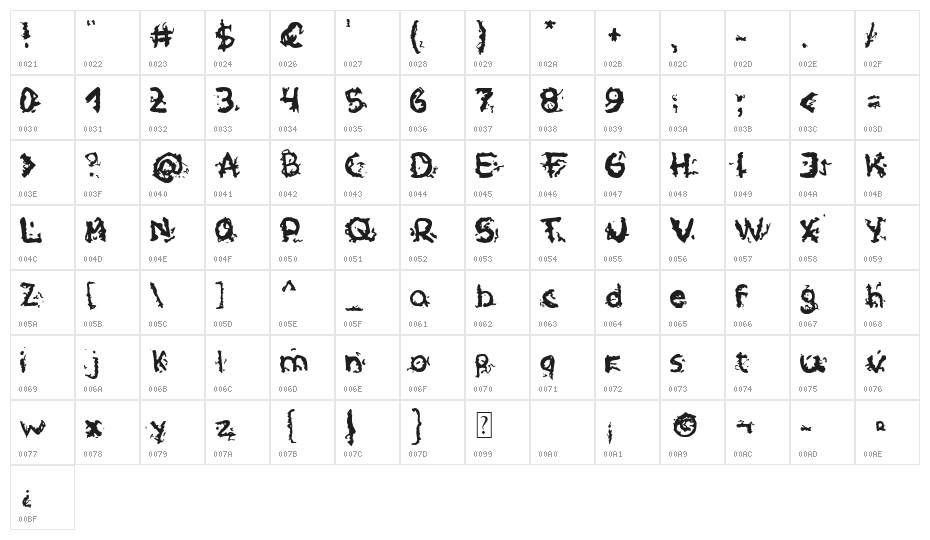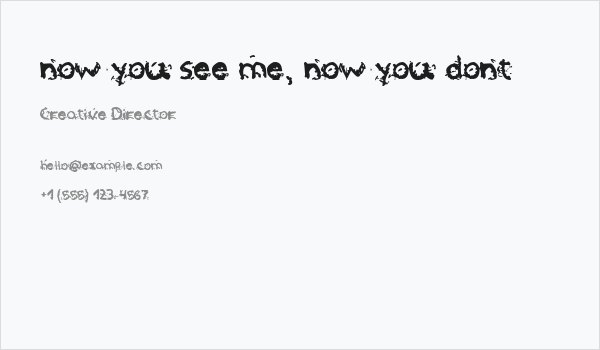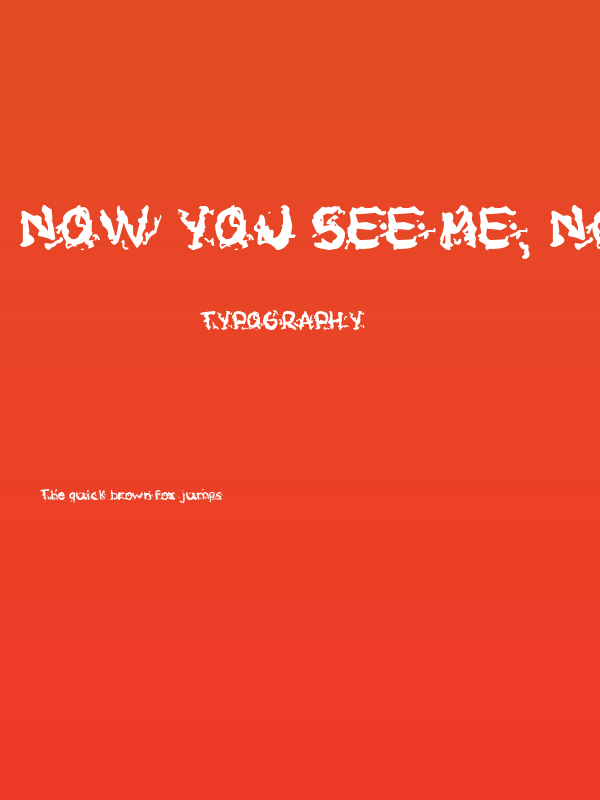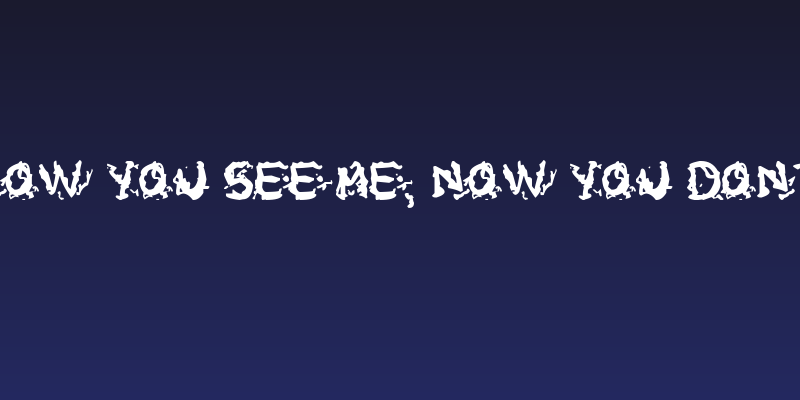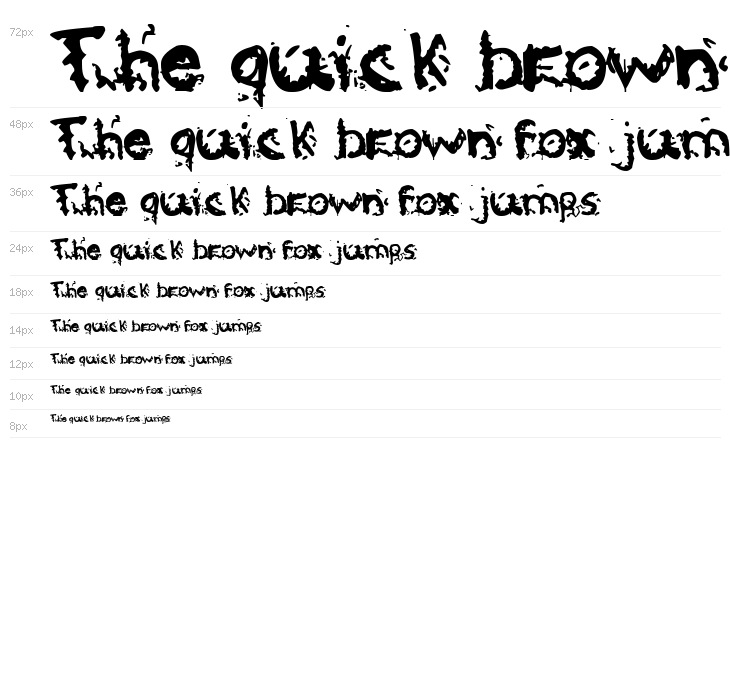
now you see me, now you dont Font
now you see me, now you dont Description
This font exhibits a highly distressed and grungy aesthetic, characterized by irregular edges and a textured appearance that mimics decay or erosion. The letters are bold and substantial, with a chaotic and unpredictable form that suggests a sense of movement or transformation. The uppercase and lowercase letters maintain a consistent style, with each character appearing as if it has been weathered or corroded over time. The numerals and special characters follow this same design ethos, contributing to a cohesive yet dynamic overall look. This font is ideal for projects that require a raw, edgy, or rebellious tone, such as music album covers, posters for alternative events, or branding for unconventional products.
| Overall Style | Grunge, Distressed |
| Use Case | Logos, Posters, Headlines |
| Proposed Projects | Ideal for music album covers, alternative event posters, and edgy branding. |